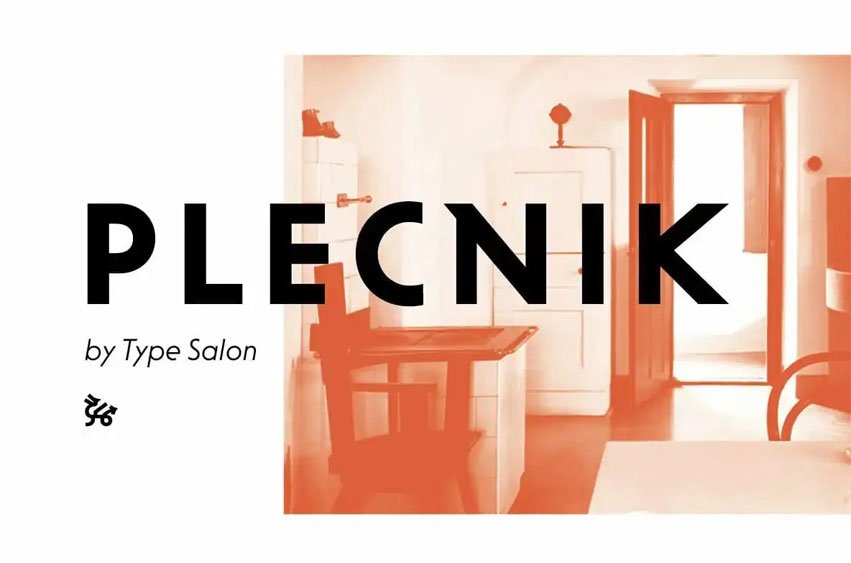
Plecnik Font typeface is based on the classical forms. Plecnik conveys a modern, sophisticated message with its classic proportion, humaniztic typographical characteristics (such as stroke endings) and a visible, but effortlessly low contrast. The font retains its uniqueness and irreplaceability due to the high recognisability of Plečníkova shapes.
Plecnik is certainly suit for the books and editorial design, branding, packaging or display. In addition to the regular styles, Plecnik also has a Display style, even more individualistic and arguably even more identifiable with Plečnik.